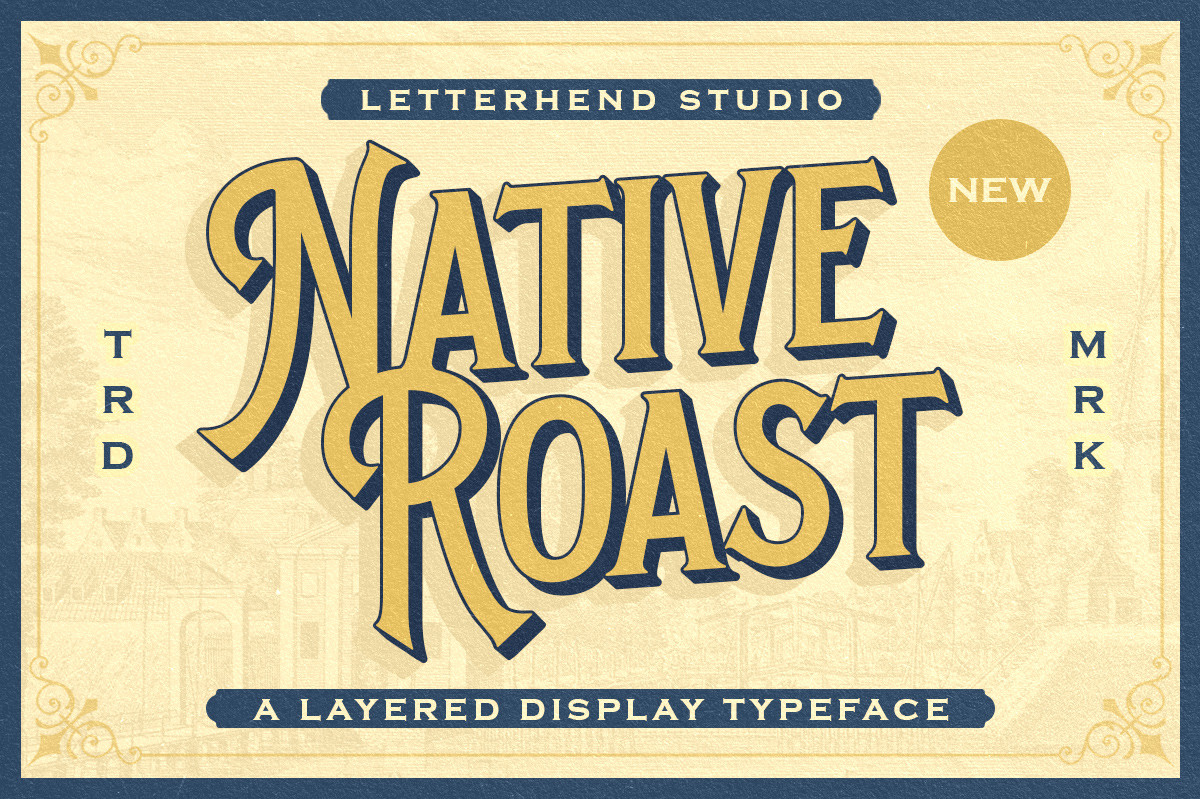
Native Roast Font
Native Roast Font is perfect for coffee shop branding, rustic restaurant menus, artisanal product packaging, vintage poster designs, craft brewery labels, organic food branding, farm-to-table restaurant materials, handmade product tags, boutique store signage, and cozy café atmospheres. This versatile typeface brings warmth and authenticity to bakery logos, specialty food packaging, farmers market displays, artisan workshop branding, and rustic wedding invitations.
What makes Native Roast Font so exciting is its perfect blend of rustic charm and modern readability. The carefully crafted letterforms capture the essence of handcrafted artistry while maintaining excellent legibility across various sizes and applications. Each character tells a story of traditional craftsmanship, making your designs feel authentic and approachable. The font's organic flow and natural imperfections create an inviting atmosphere that resonates with audiences seeking genuine, down-to-earth experiences. Its distinctive personality sets it apart from generic sans-serif fonts, offering designers a unique tool to create memorable brand identities.
The Native Roast Font family includes multiple weights and styles to suit various design needs. The collection features regular, bold, and light variations, along with italic versions that add dynamic movement to your text. Additional character sets include decorative elements, ligatures, and special symbols that enhance the overall design flexibility. Each family member maintains the core aesthetic while offering subtle variations in thickness and character spacing, allowing designers to create hierarchical layouts and establish visual rhythm throughout their projects.